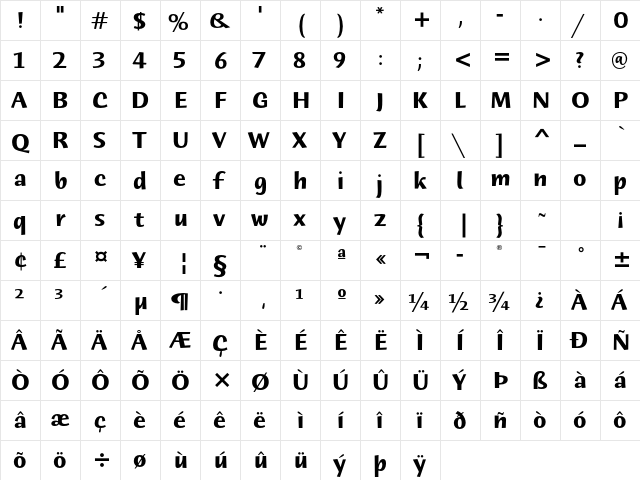
Humana Sans ITC Std Bold Font Preview
Humana Sans ITC Std Bold
| Designer | Timothy Donaldson |
Design Context for Humana Sans ITC Std Typeface
Humana Sans ITC Std is a composed and adaptable typeface that performs quietly and consistently across a wide range of design contexts. Its bold stroke weight gives it real presence on the page.